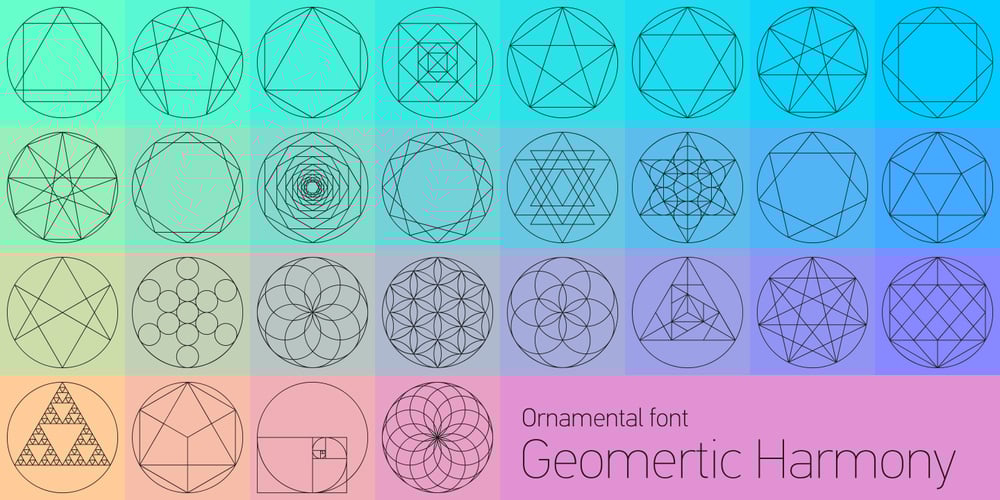
Geometric Harmony
Geometric Harmony font
Geometric Harmony Font Family was designed by Lukyan Turetskyy and published by 2D Typo. Geometric Harmony contains 1 styles and family package options. Charming beauty of the laws of geometry. Easy and elegant decor for your design.